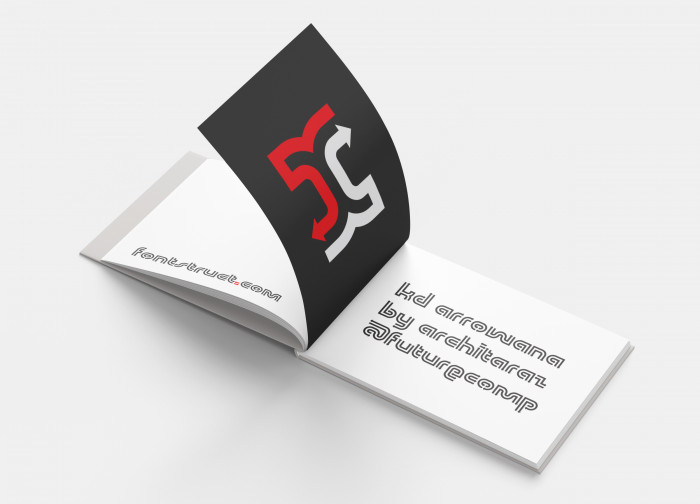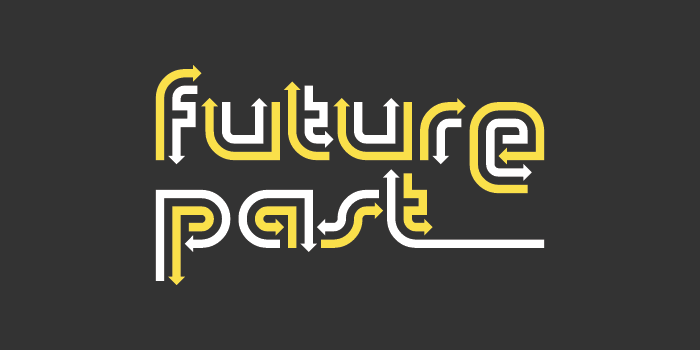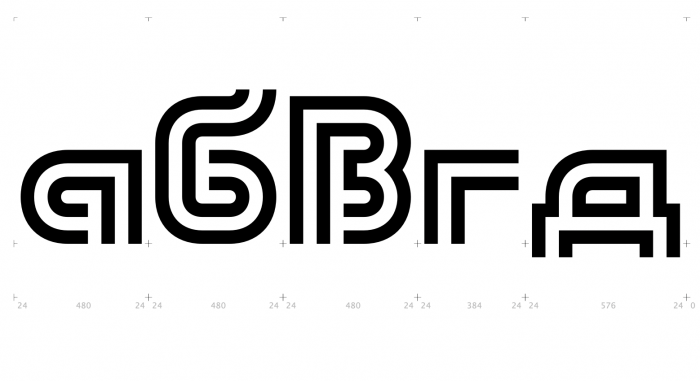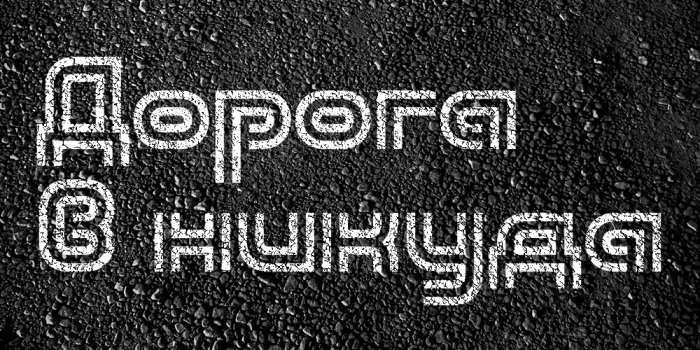
A warm-up entry. Continuing the tradition because it seems most competitions I entered before had entries with arrow fonts... there is just something about arrows that I like ;) I hope letters like lowercase "e" give this font that extra futuristic feel.
Nice work. I couldn’t make something like this even if I tried.
@architaraz - Very nice theme!  One minor quibble (though it may be an intentional design choice): the ? has two arrowheads on the same line, as opposed to the alternating pattern present on the rest of the glyphs.
Love this! I even love your solution for M and W And their lowercase
@Goatmeal: Well spotted! Thanks. Fixed.
@BWM: Yeap, those letters along with descender style e should give this font a futuristic feel.
Excellent font and samples and great use of the connected bricks.
A look into some of the more or less successful Cyrillic letters. This one should be ready as soon as I finish the kerning.
I love these cyrillic letters and the decision to remove the arrows. Interesting to see how you did я.
Without the arrows it will no longer be the same font. Yes, you should rename it... And it will look fantastic, I'm sure!
@Dmitriy Haha, that's why I didn't show it cause it's problematic. I have two versions for it maybe will make both versions available with alternates feature.
Why didn't I publish this? :0
Congratulations! FontStruct Staff have deemed your FontStruction worthy of special mention. “KD Arrowana” is now a Top Pick.
Oh. Thanks! This has now been renamed to Doobl
So Beautifuler!
Congratulations, compa!
Thank you compas! Yeah, somehow I forgot about it :) It was ready except for kerning so did it and now it's live. Still not sure if everything is properly kerned there cause plugins are not workin on my Glyphs 2 so it's pretty much mechanical.